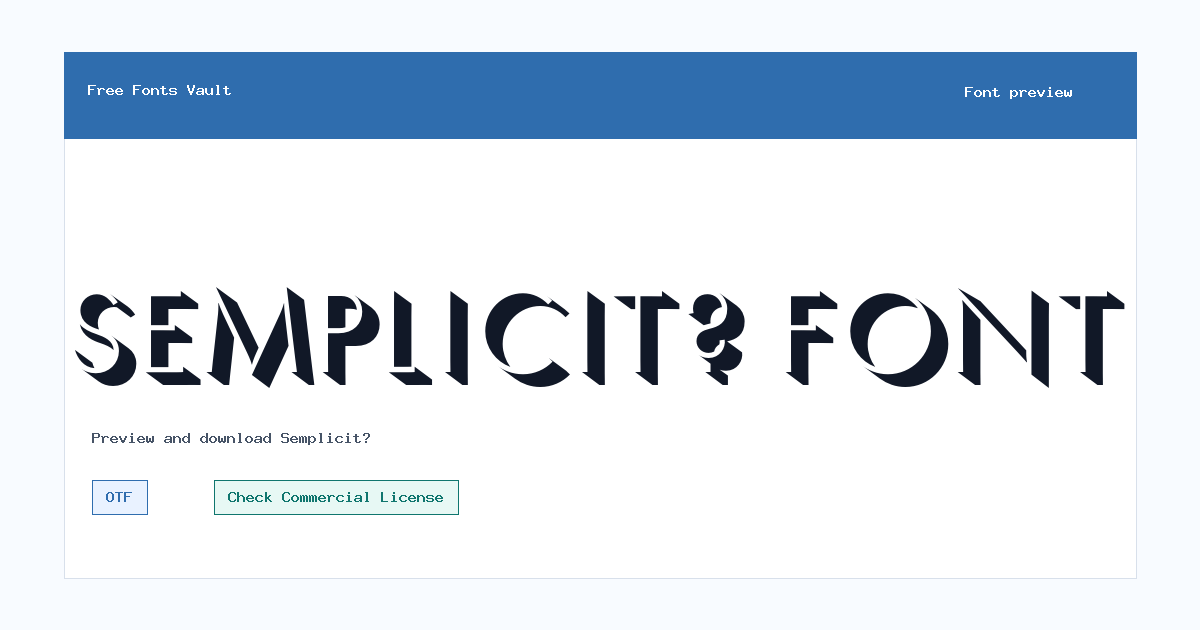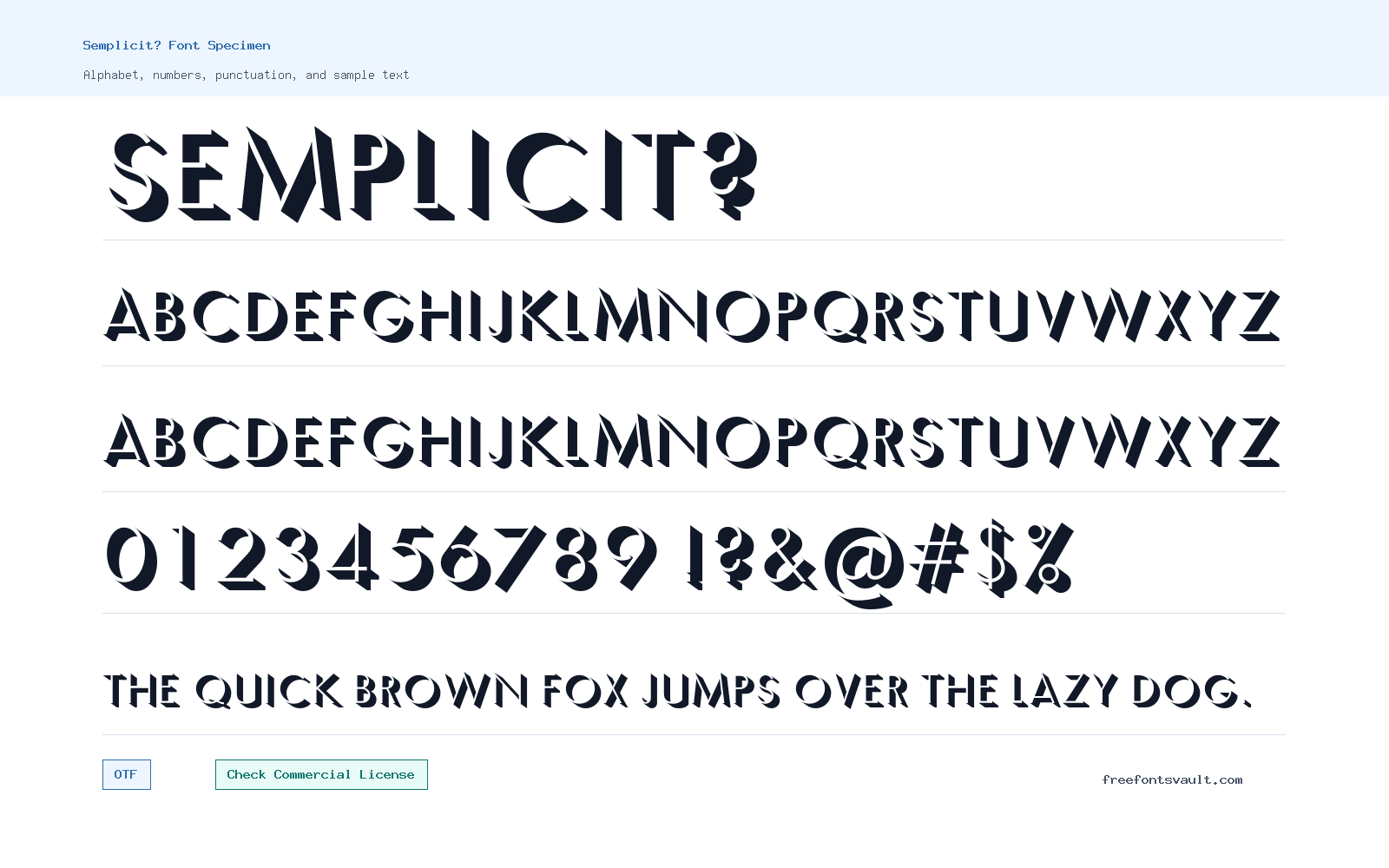
Semplicit?
The local catalog label for this file is Semplicit?, while the source record identifies the related digitisation as Semplicità. This page keeps that distinction visible rather than pretending a filename is a complete history. The preview is for the exact mapped local asset. Use it to test real words, line breaks, and numbers before using the geometric sans-serif style in a title, poster, or carefully spaced brand treatment.
How Semplicit? reads
The character of the design comes from its disciplined geometric framework and its unusually deliberate details. It can feel rational and period-aware at the same time, especially in short all-caps lines. Test the U, f, punctuation, and rounded letters in your own phrase because those details shape the result more strongly than a generic alphabet sample. A small amount of extra space may help the forms keep their clarity.
This style is useful for art-deco-leaning headings, museum or architecture graphics, and design work that needs a clean historical reference without resorting to a generic sans serif. Keep supporting copy in a modern text face and use the display layer sparingly. For detailed instructions or long paragraphs, choose a typeface built for sustained reading.
Try a short architectural title, a date, and an all-caps word. Inspect the result at both large and modest sizes. If the distinctive details start to blur, simplify the wording or give the line more space rather than adding visual effects.
Questions about Semplicit?
Why does the page title say Semplicit?
The catalog filename is recorded as Semplicit?, while the source record uses Semplicità; this page keeps the source naming clear.
Is this a paragraph font?
It is better treated as a distinctive display choice. Use a text-focused companion for long reading.